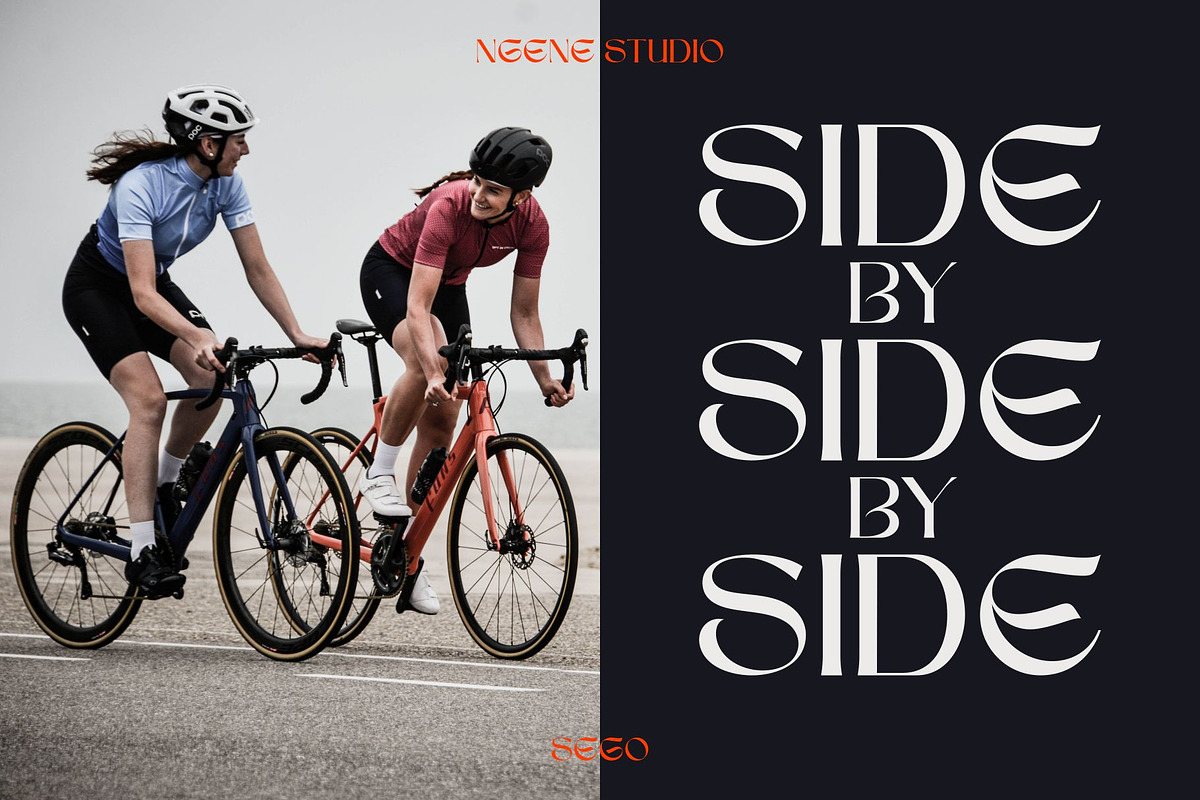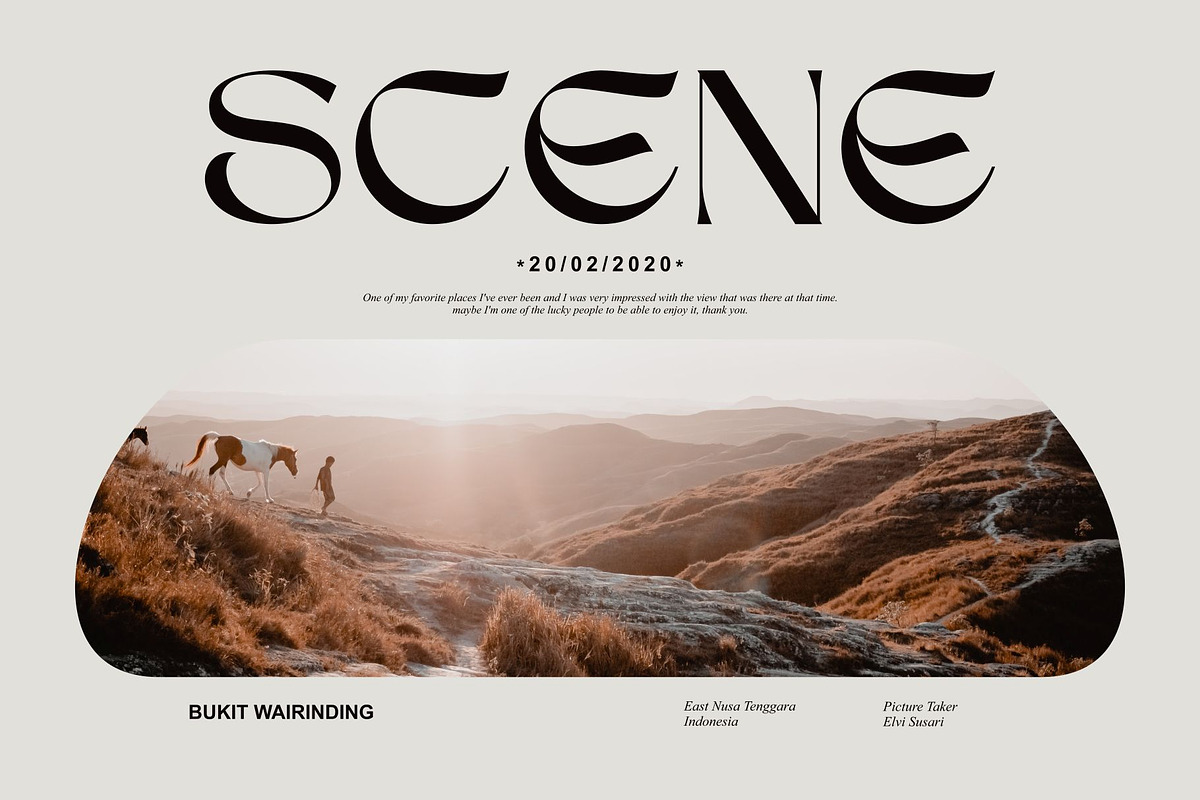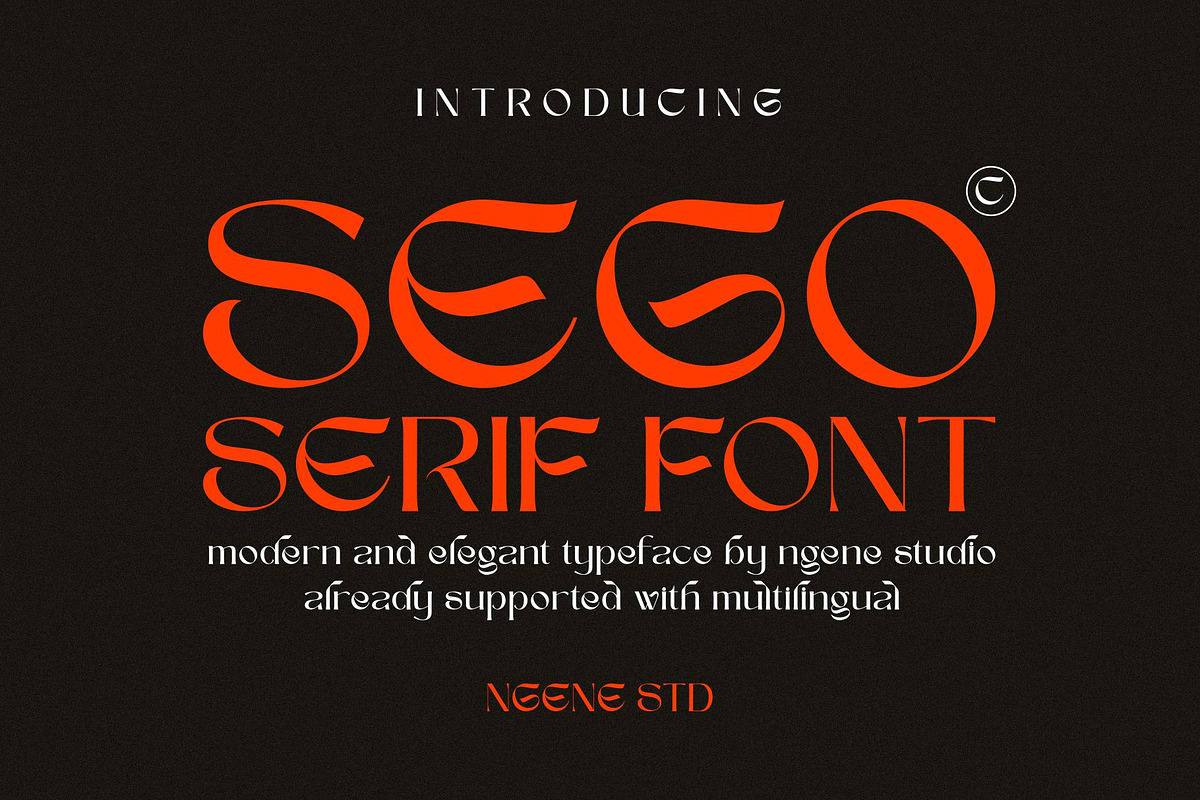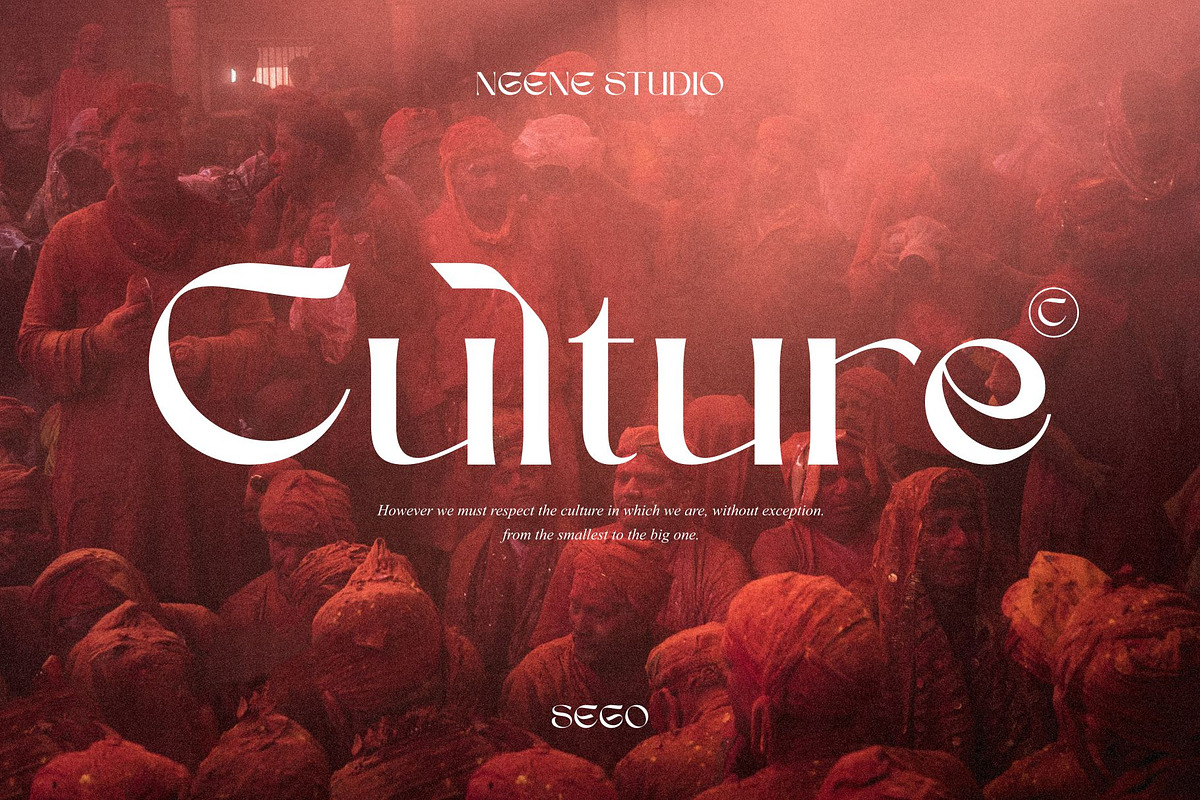
Sego Serif Font
INTRODUCING
Sego vintage style serif font with an elegant and modern touch, this font is amazing of different character characters. This font has several alternatives available in it, suitable for creating logo designs, badges, web fonts, magazines and others. With a very strong font character, it will make your design different and more attractive.